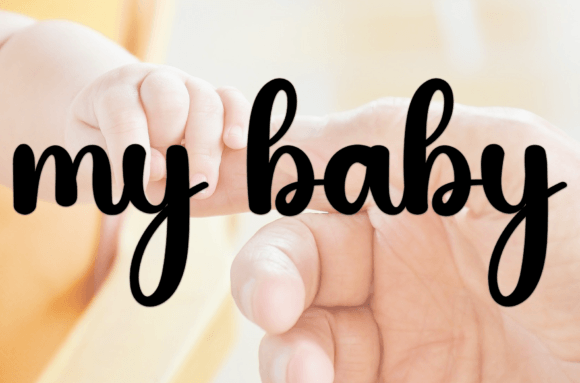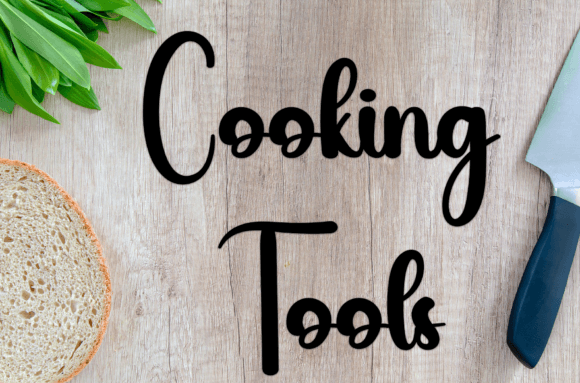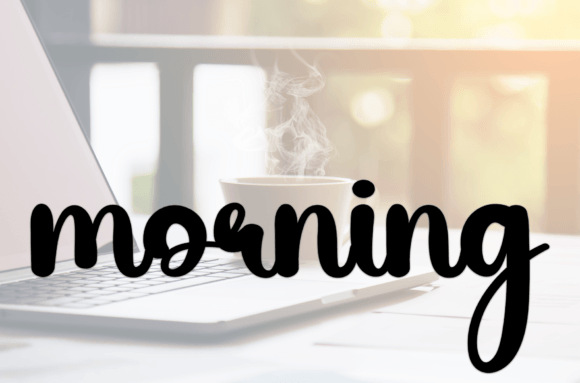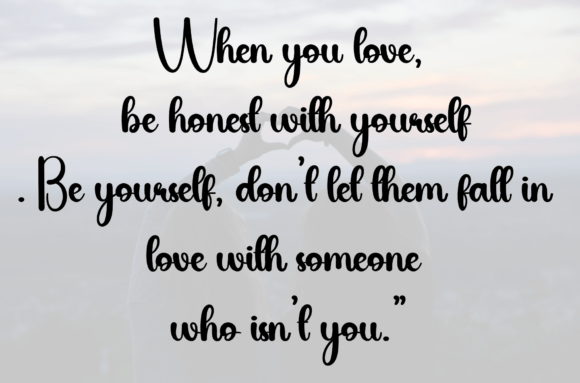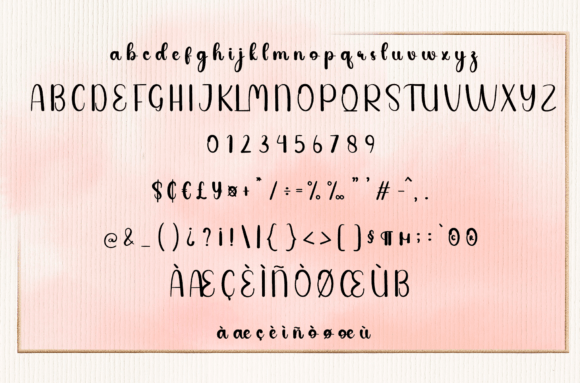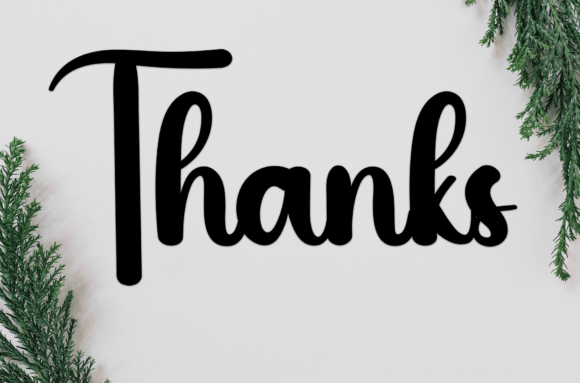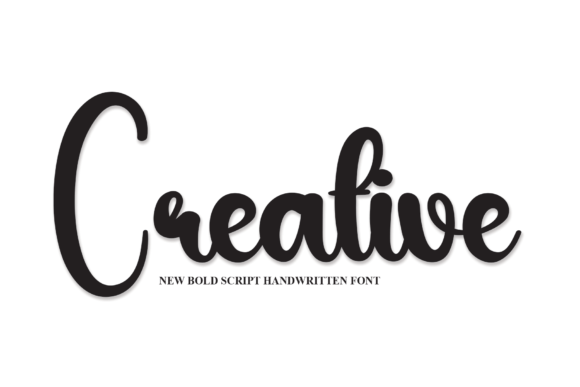
Introducing Creative Font: The Sweet and Friendly Handwritten Font for Your Design Needs
Are you a designer or crafter looking for a font that can add a personal touch to your designs? Look no further than Creative Font, a sweet and friendly handwritten font that’s perfect for a variety of projects. In this article, we’ll explore the features and benefits of Creative Font, and show you how it can elevate your designs to the next level.
What is Creative Font?
Creative Font is a beautiful, handwritten font that’s designed to bring a touch of warmth and personality to your designs. With its fun and relaxed vibe, this font is ideal for writing wedding invitations, cards, or any other design that might need a lovely touch. Whether you’re a professional designer or a crafty DIY enthusiast, Creative Font is the perfect choice for anyone looking to add a bit of whimsy and charm to their work.
Key Features of Creative Font
- Handwritten style: Creative Font features a beautiful, handwritten style that’s perfect for adding a personal touch to your designs.
- Fun and relaxed vibe: This font has a fun and relaxed vibe that’s ideal for designs that need to feel friendly and approachable.
- Perfect for wedding invitations and cards: Creative Font is specifically designed for writing wedding invitations, cards, and other designs that require a touch of elegance and sophistication.
- Easy to read: Despite its handwritten style, Creative Font is easy to read and understand, making it perfect for designs that require a clear and concise message.
Benefits of Using Creative Font
So why should you choose Creative Font for your design needs? Here are just a few benefits of using this beautiful font:
- Adds a personal touch: Creative Font adds a personal touch to your designs, making them feel more unique and special.
- Sets the tone for your brand: With its fun and relaxed vibe, Creative Font can help set the tone for your brand and create a consistent visual identity.
- Perfect for a variety of projects: Whether you’re designing wedding invitations, cards, or other projects, Creative Font is a versatile font that can be used in a variety of contexts.
How to Use Creative Font in Your Designs
Using Creative Font in your designs is easy. Here are a few tips to get you started:
- Pair it with other fonts: Creative Font pairs well with other fonts, so feel free to experiment with different combinations to find the perfect look for your design.
- Use it for headings and titles: Creative Font is perfect for headings and titles, where its handwritten style can really shine.
- Add some flair with swashes: If you’re feeling adventurous, try adding some swashes to your text to give it a bit of extra flair.
In conclusion, Creative Font is a beautiful, handwritten font that’s perfect for designers and crafters looking to add a personal touch to their designs. With its fun and relaxed vibe, this font is ideal for writing wedding invitations, cards, or any other design that might need a lovely touch. Whether you’re a professional designer or a crafty DIY enthusiast, Creative Font is a versatile font that can be used in a variety of contexts. So why not give it a try and see how it can elevate your designs to the next level?